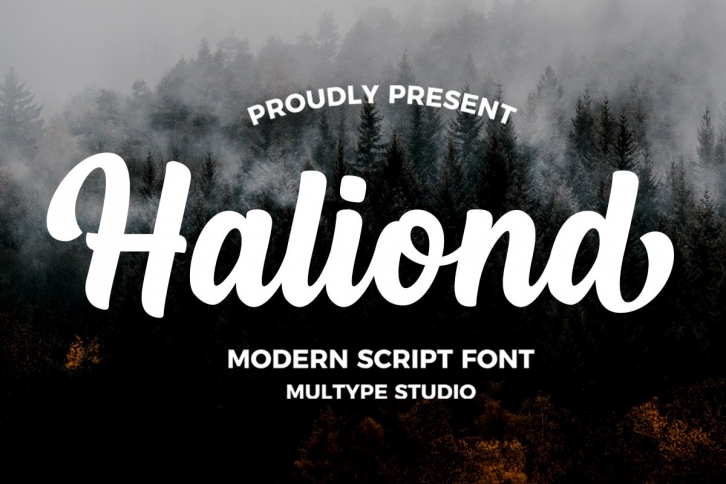
Haliond Modern Script is a trendy and unique font with an authentic style. It was designed by Multype Studio and it's a great choice for creative people who need such a font. It was released on June 2, 2022 and the file size is 19.84 MB. Haliond Modern Script will add an organic vibe to any design idea!